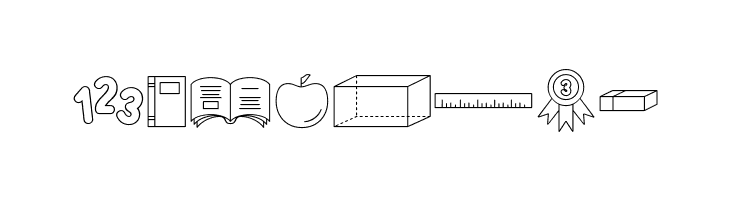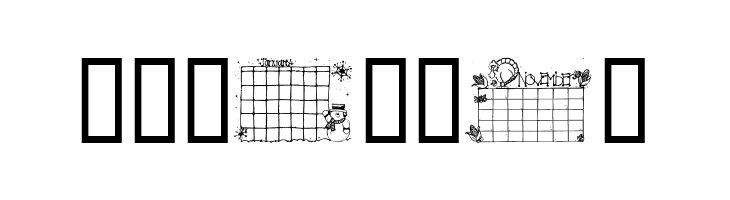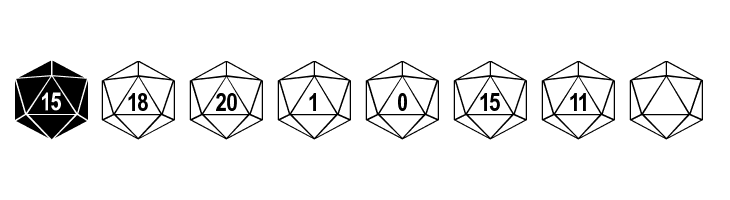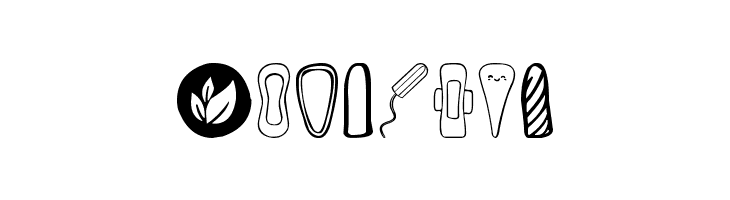
A whimsical, grid-patterned decorative font with a playful style.
Decorative numerals inside icosahedron shapes, mimicking dice.
Hand-drawn decorative font with feminine hygiene and self-care icons.
A playful set of educational dingbats featuring school-related icons and symbols.